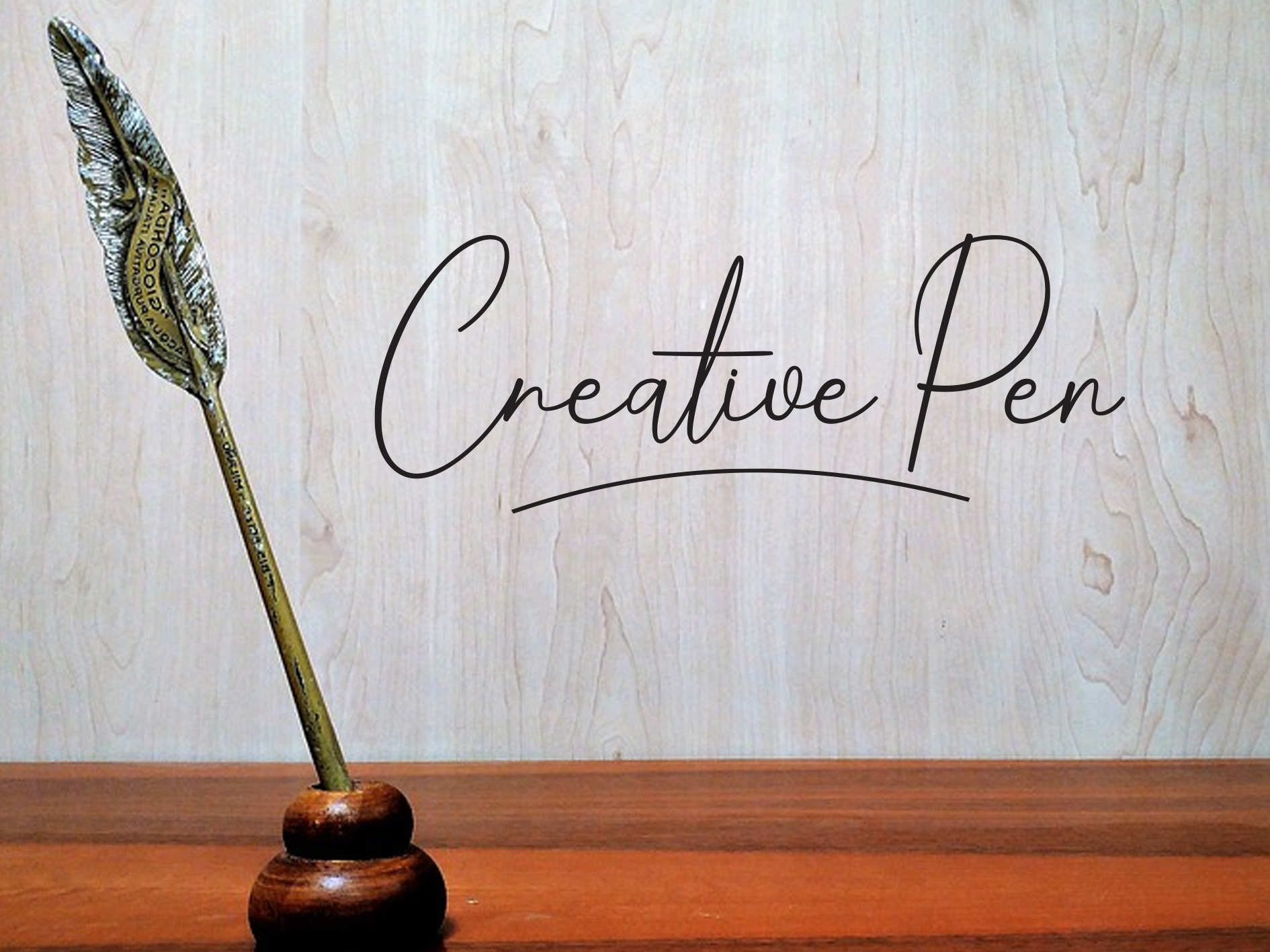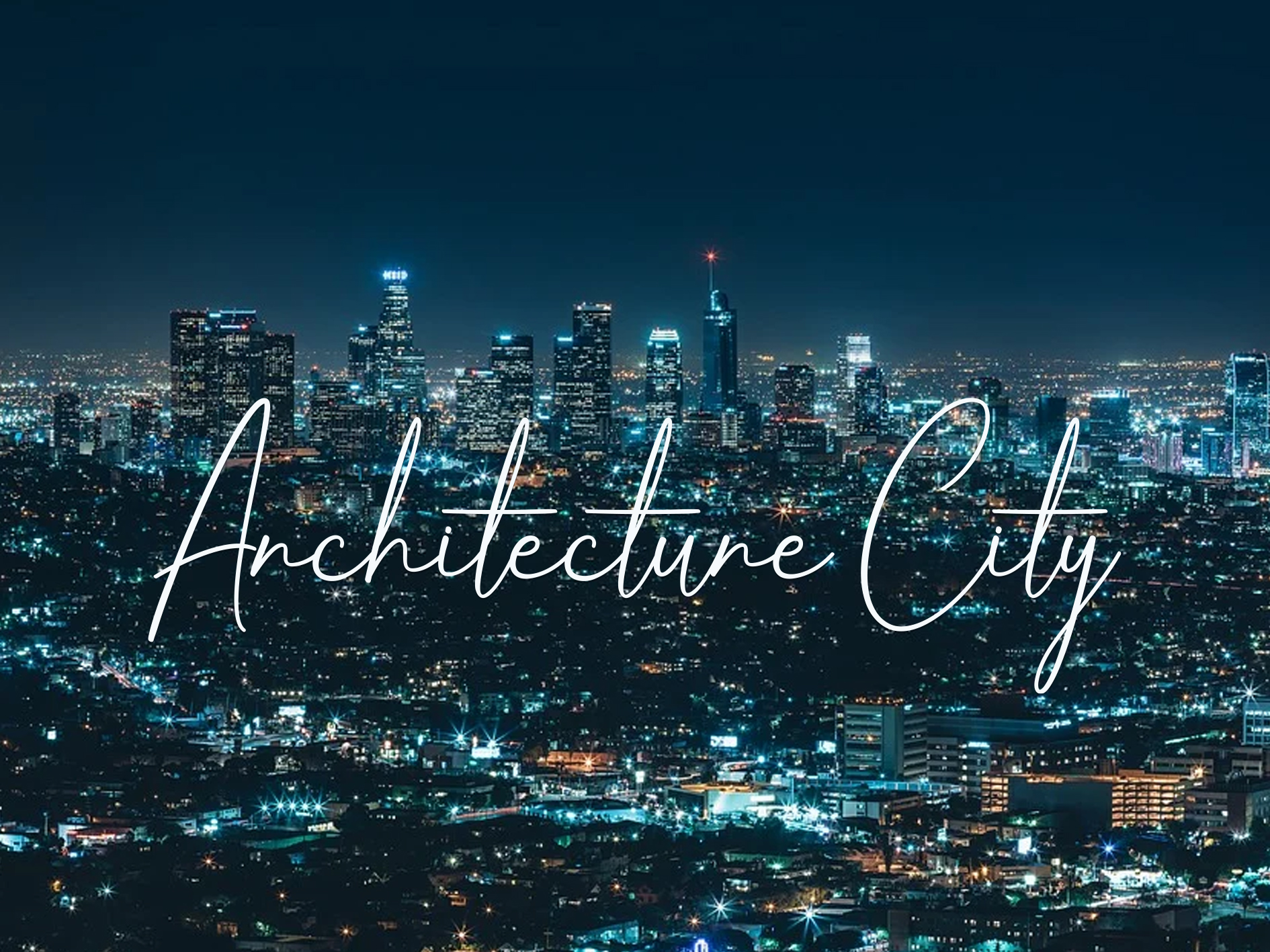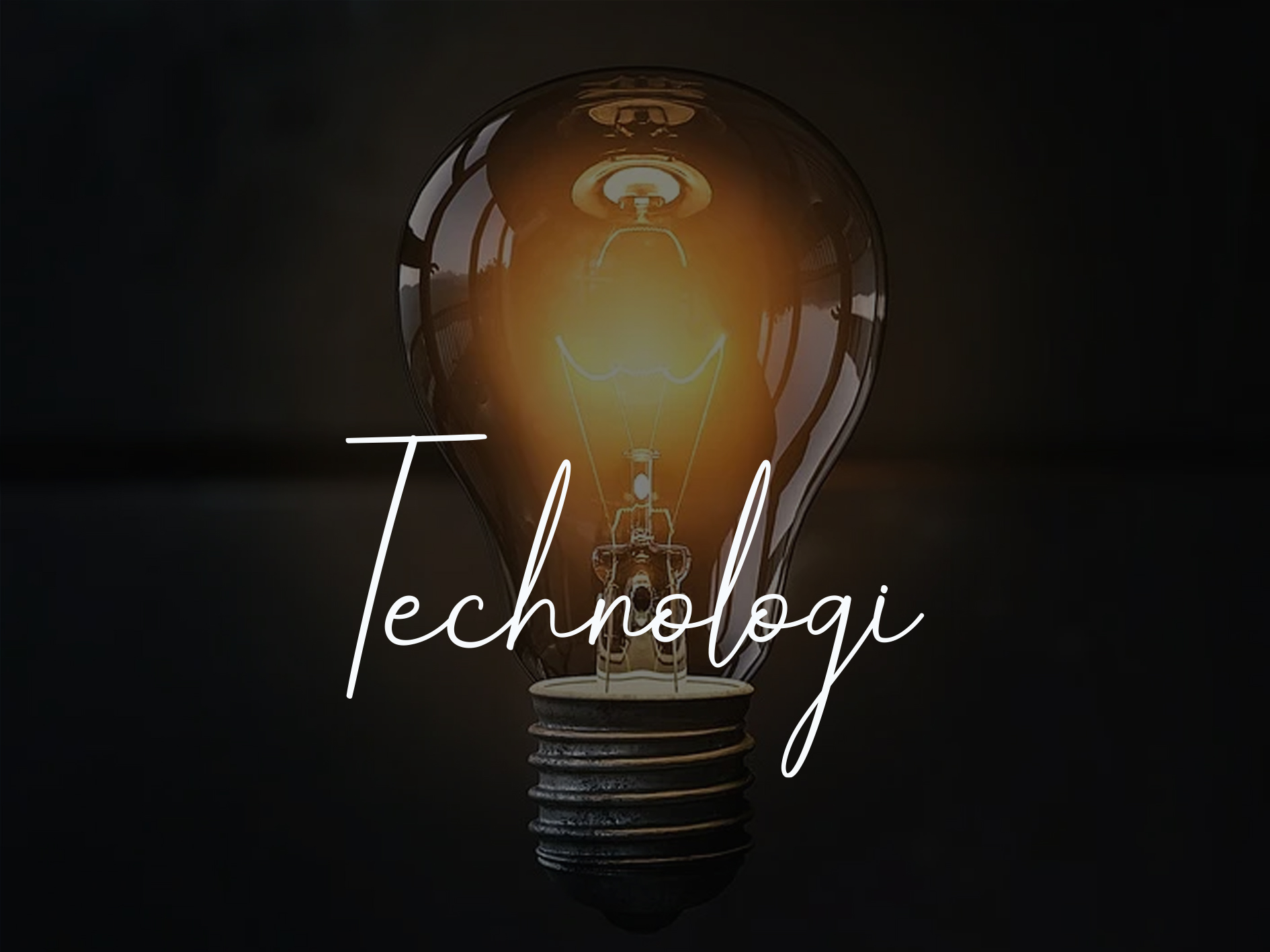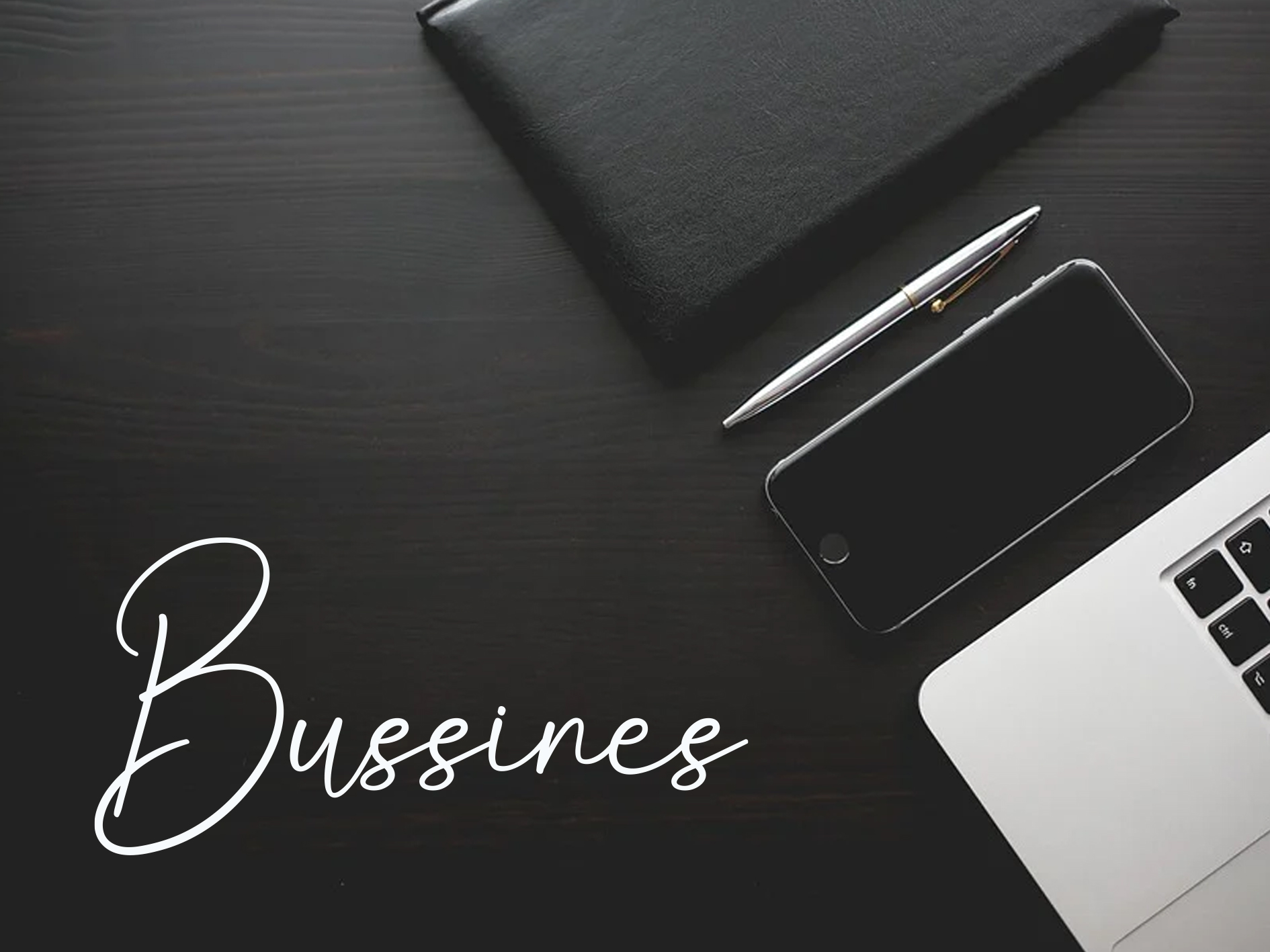
Writing Signature Script Font
This is a delicate handwritten font that is carefully crafted to produce cool and unique designs. This font can be used to write letters, invitations, food products and more.
This is a beautiful and unique handwritten font, with grooves crafted to produce beautiful lettering for use in a wide variety of products as desired. This product link; https://www.creativefabrica.com/product/writing-signature-5/ref/1679118/